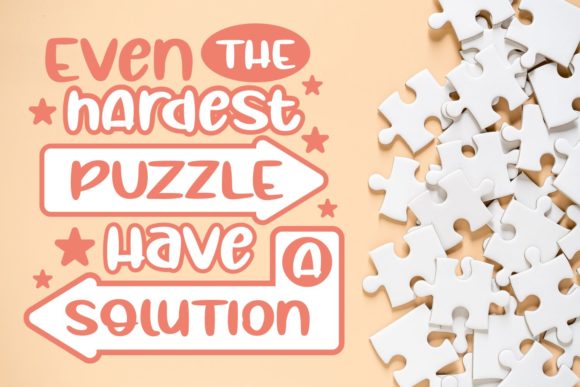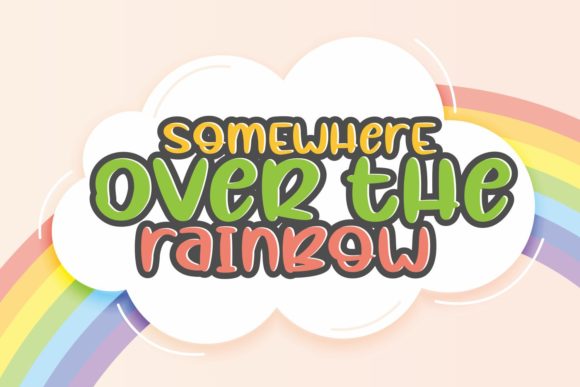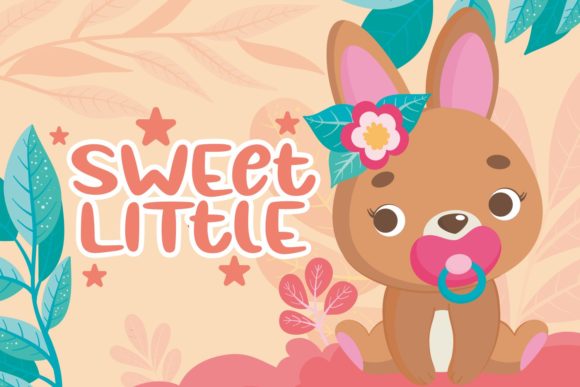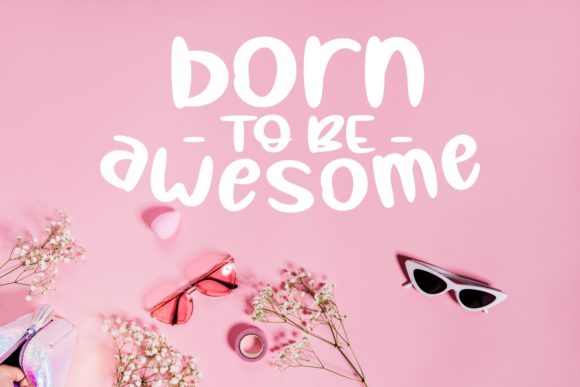
Introducing Enjoy Every Moment Font: Unleash Creativity with a Playful Handwritten Style
Are you tired of using the same old fonts for your kids’ and school projects? Do you want to add a touch of personality and whimsy to your designs? Look no further than the Enjoy Every Moment font! This bold and unique handwritten font is perfect for crafters, designers, and educators who want to bring a sense of childlike playfulness to their work.
What Makes Enjoy Every Moment Font So Special?
The Enjoy Every Moment font is a one-of-a-kind, handcrafted typeface that exudes a sense of fun and spontaneity. Its bold lines, irregular shapes, and playful letterforms make it perfect for designs that require a personal touch. Whether you’re working on a kids’ party invitation, a school project, or a craft tutorial, this font is sure to add a dash of excitement and energy to your work.
Key Features of Enjoy Every Moment Font
- Bold and Unique: The Enjoy Every Moment font features bold lines and irregular shapes that give it a distinctive, one-of-a-kind look.
- Handwritten Style: This font is carefully crafted to mimic the look and feel of handwritten text, adding a personal touch to your designs.
- Childlike Playfulness: The Enjoy Every Moment font is perfect for designs that require a sense of fun and playfulness, making it ideal for kids’ and school projects.
- Easy to Read: Despite its bold and playful style, the Enjoy Every Moment font is easy to read, making it perfect for use in a variety of design applications.
The Enjoy Every Moment font is a bold and unique handwritten font that’s perfect for designers, crafters, and educators who want to add a touch of childlike playfulness to their work. With its bold lines, irregular shapes, and playful letterforms, this font is sure to bring a sense of fun and excitement to any design project. So why not give it a try and see the difference it can make?